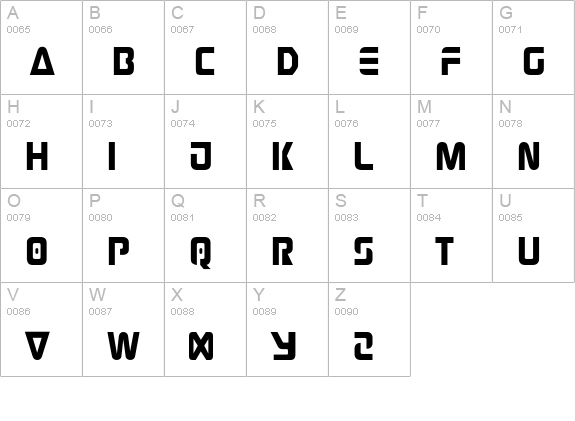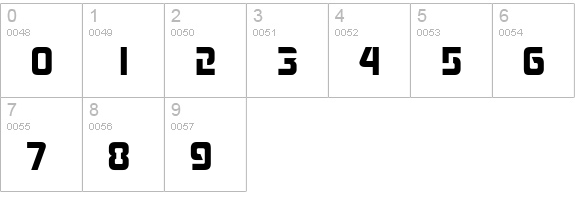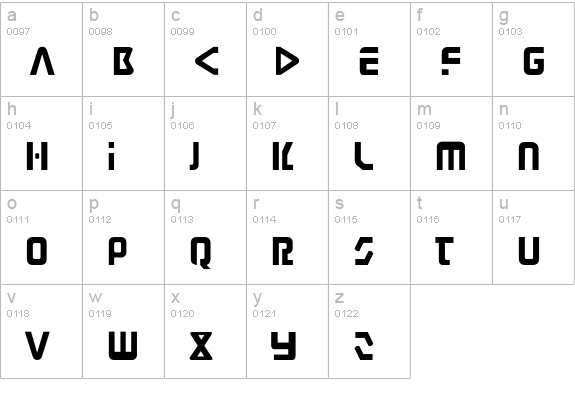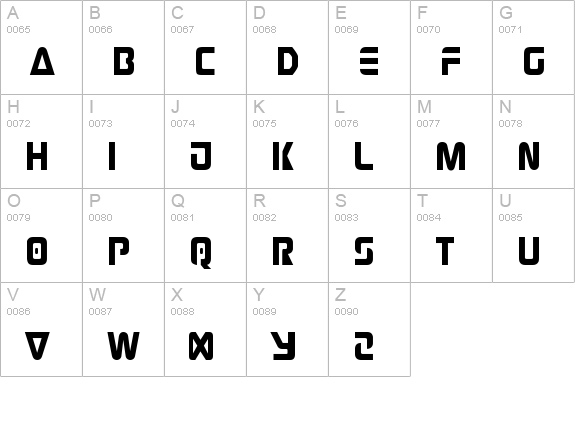
Judge Font Details
Judge font is a bold and elegant typeface that exudes authority and professionalism. With its strong, clean lines and classic design, Judge font is perfect for legal documents, official correspondence, or any project that requires a touch of sophistication. Its timeless appeal makes it a versatile choice for a wide range of design applications. What sets Judge font apart is not only its striking appearance but also the fact that it is available for free download at FontsMarket.com. This means that you can add this stylish font to your collection without breaking the bank. Whether you're a designer looking to enhance your projects or an individual in need of a refined typeface for personal use, Judge font is a valuable addition to any font library. Download Judge font today from FontsMarket.com and elevate your designs with this premium typeface that combines elegance, professionalism, and accessibility – all in one package.